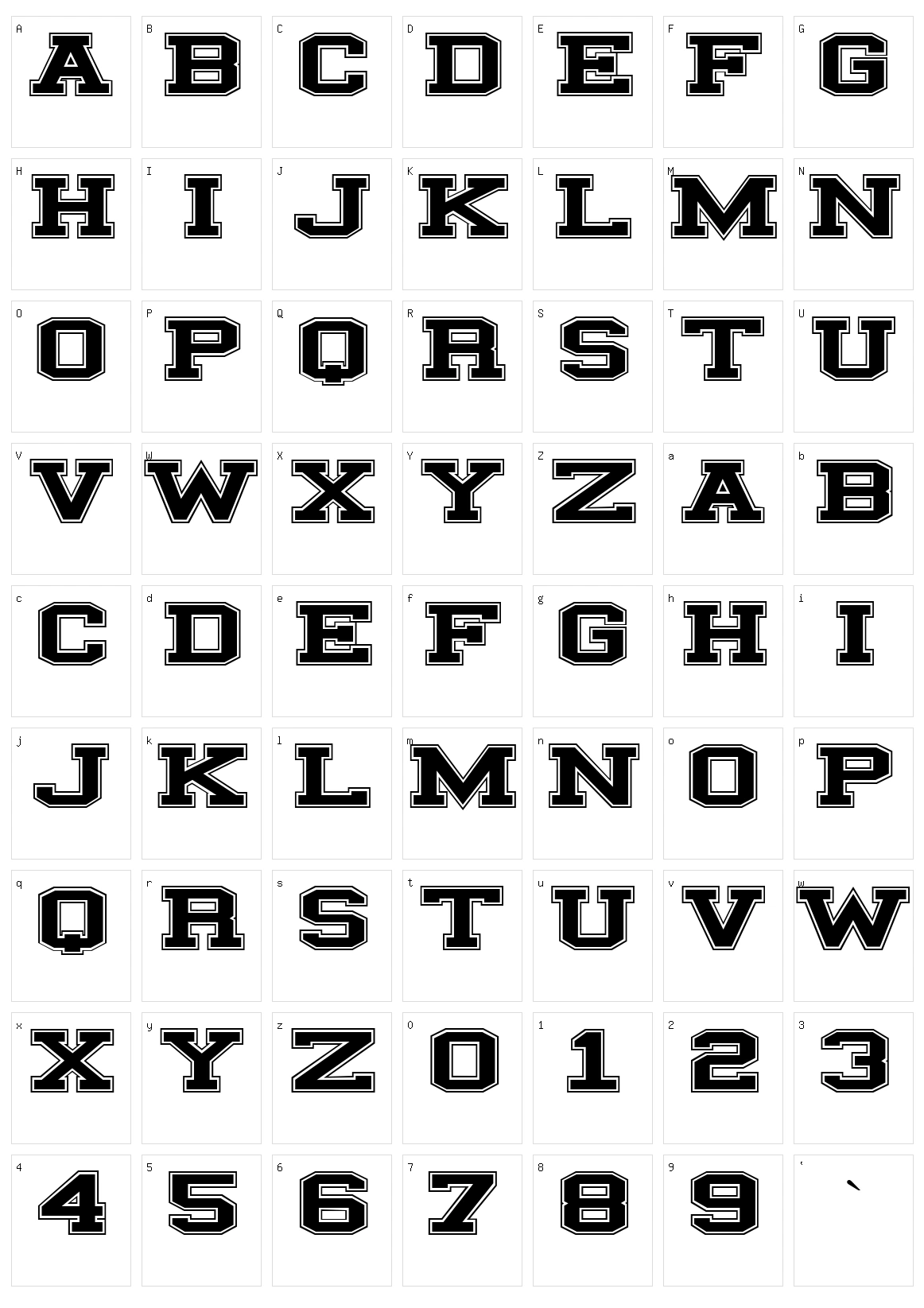
The free font Illinois Block is carefully designed by Daniel Heikkinen, showcasing a thoughtful balance of creativity and usability and falls under the Old School font style. When you download the ZIP file, it contains only 14.22 KB of font files, making it lightweight and quick to download. Please review the license details below to understand permitted usage and distribution rights. If license information is not available, we recommend using this font for personal projects only or contacting the author directly for commercial usage permissions.